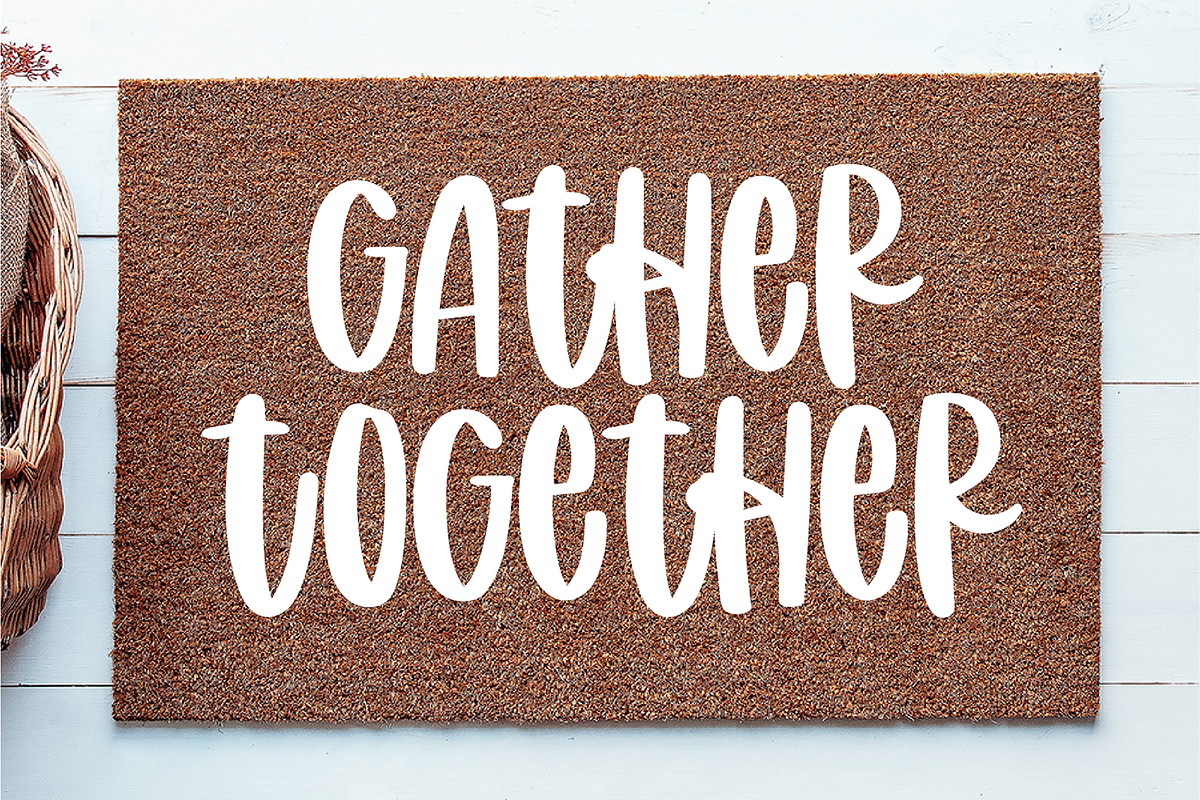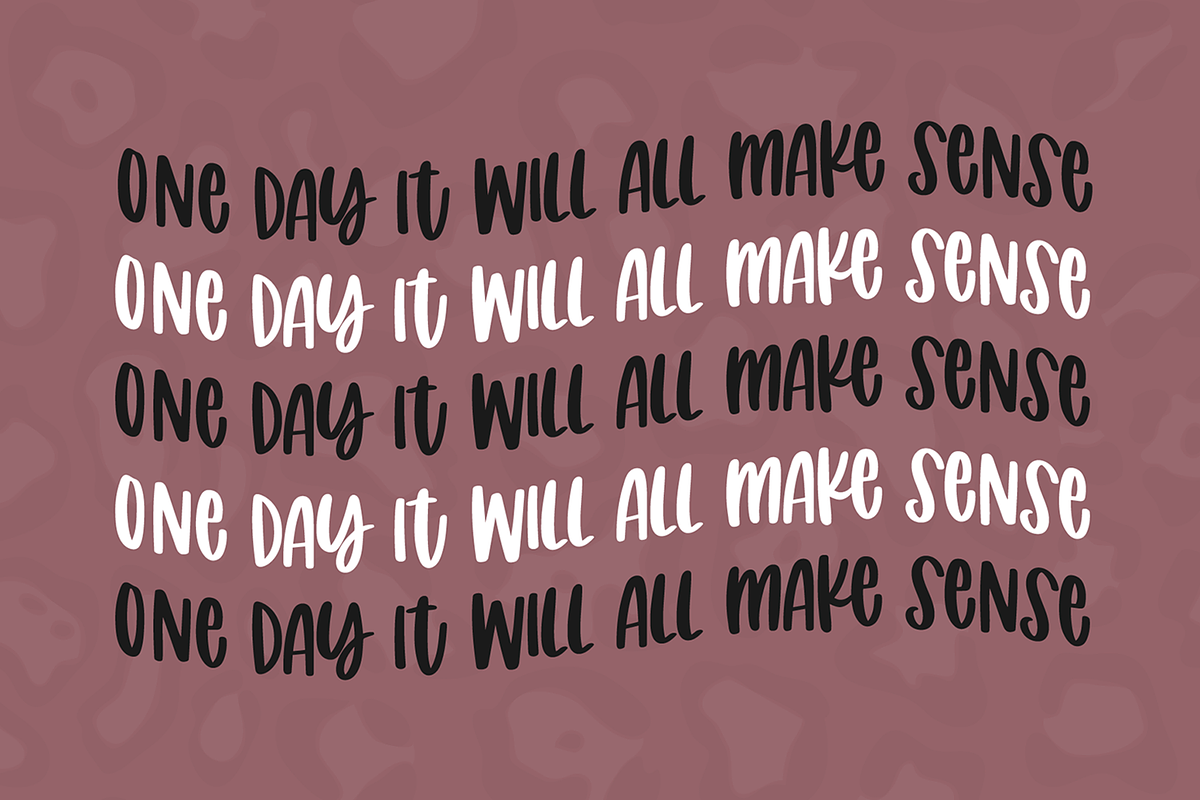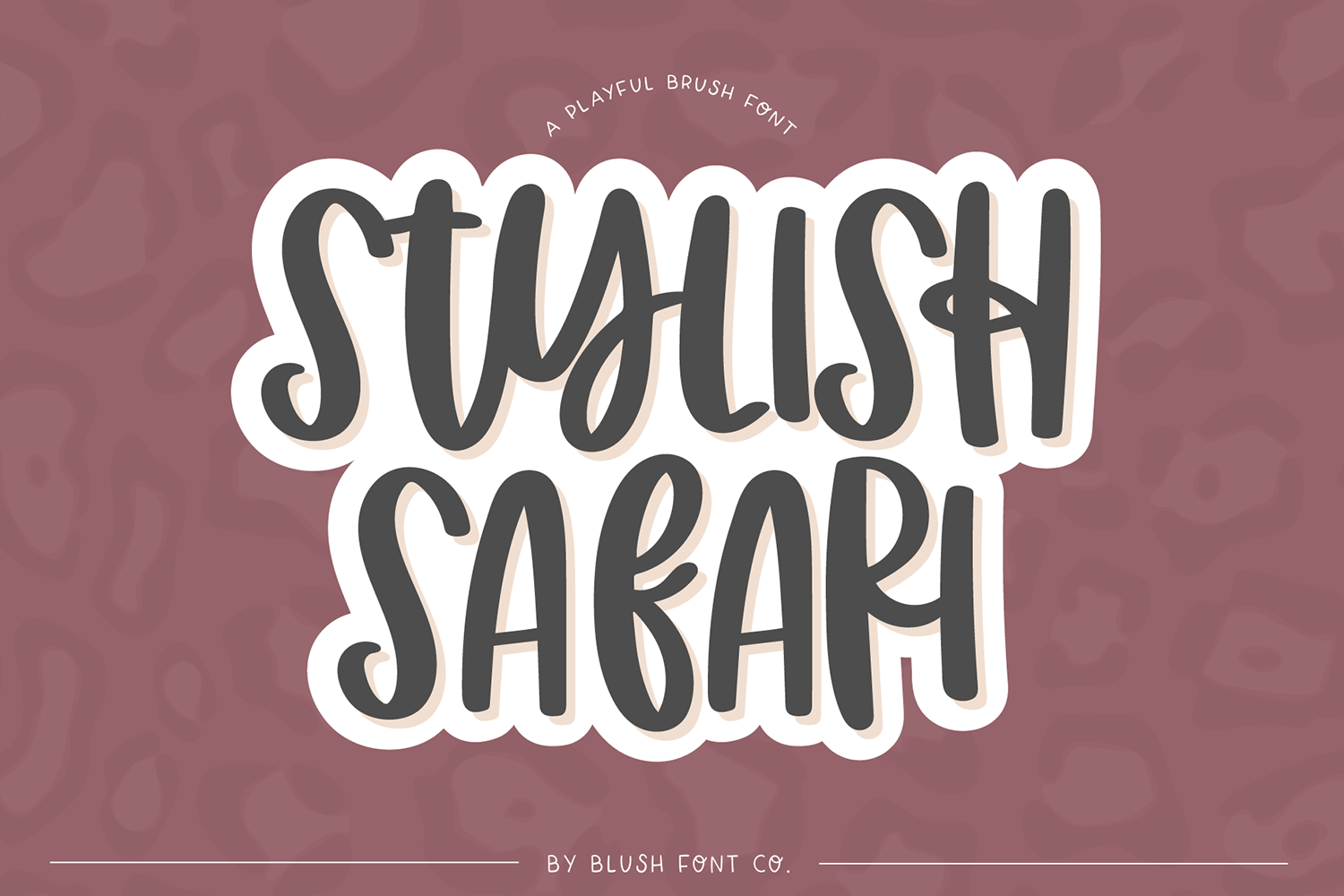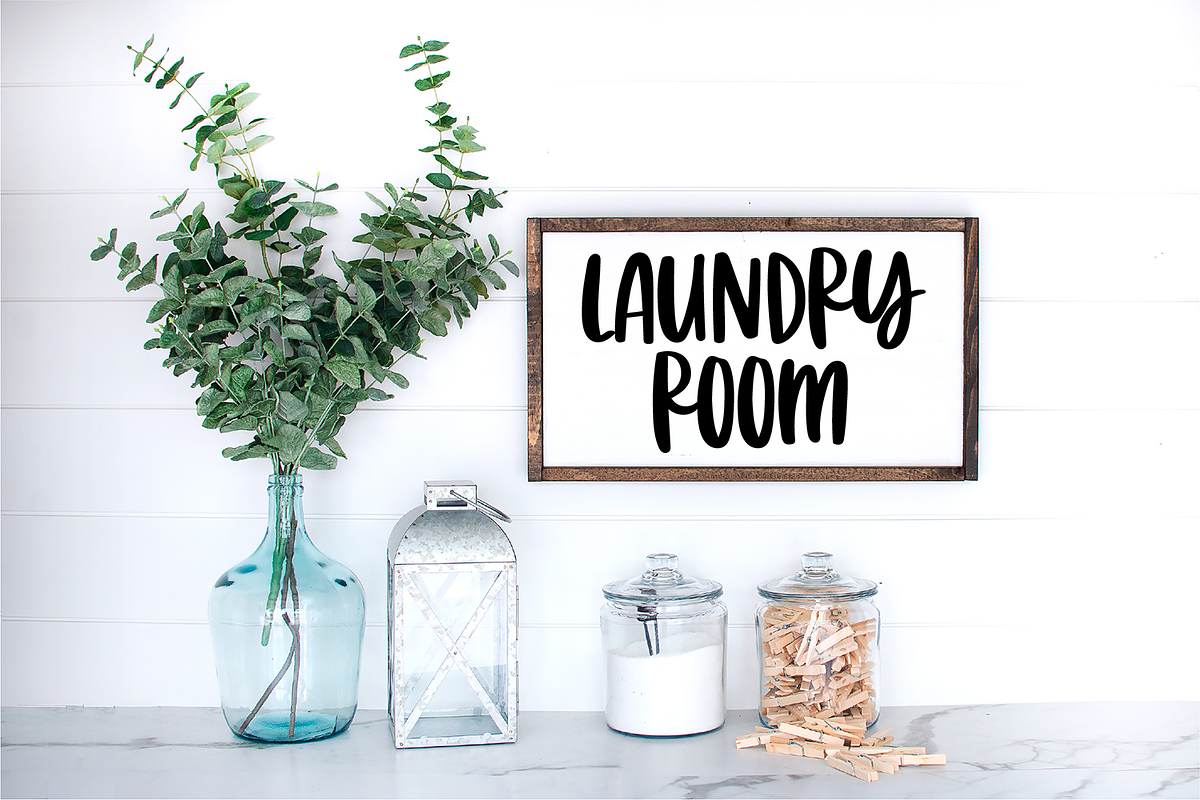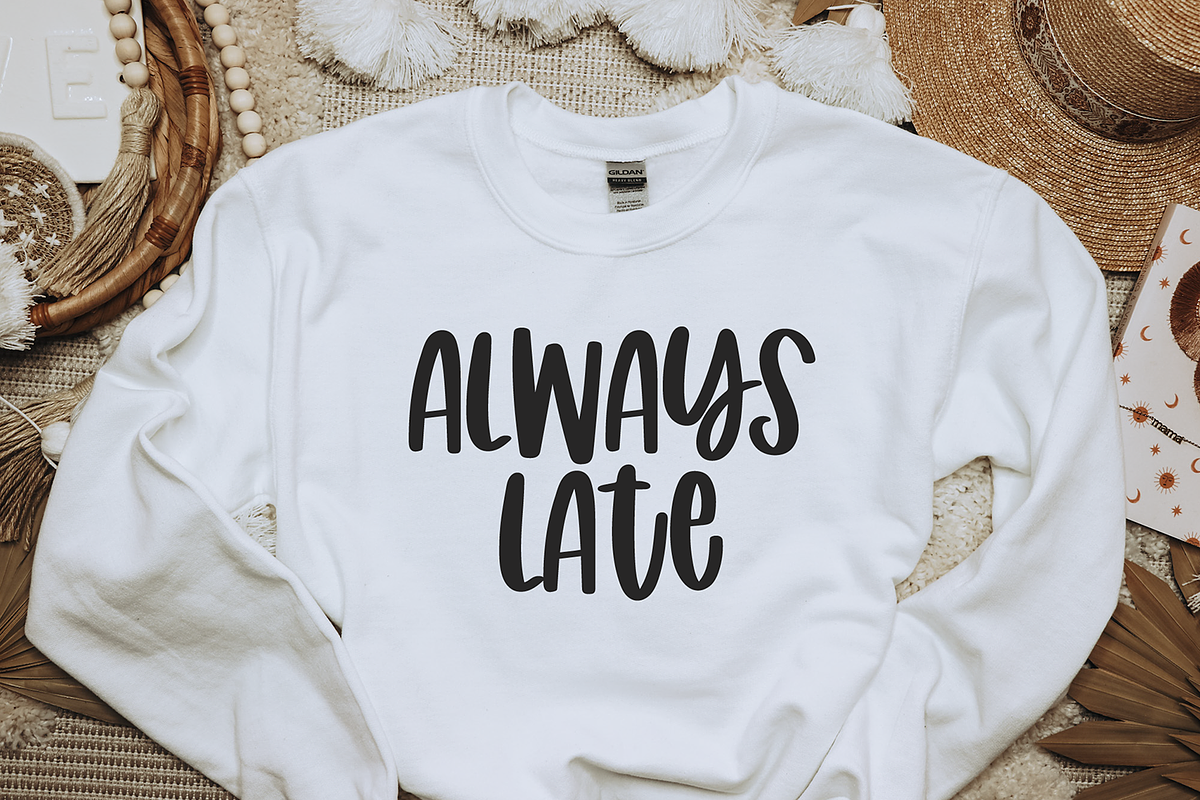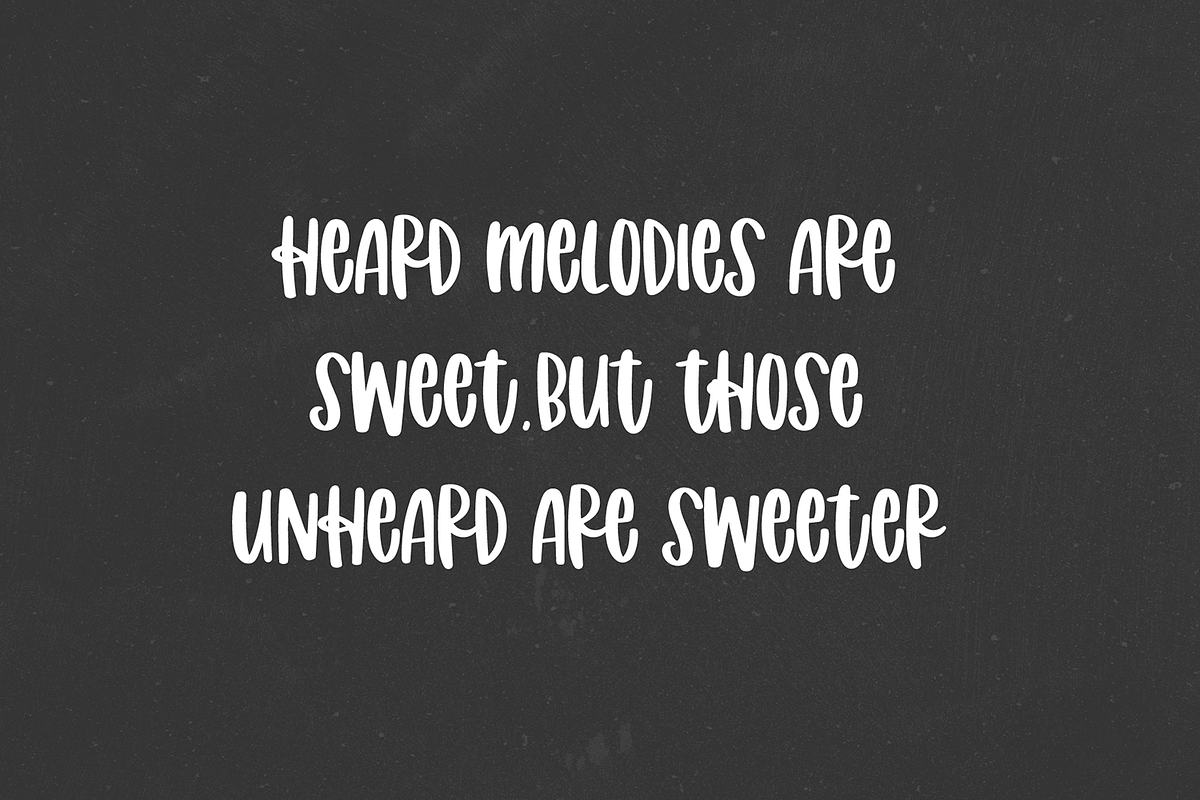
STYLISH SAFARI Brush Font
"Stylish Safari" cute brush font.
This font is a whimsical brush font that is perfect for social media or crafty projects. Use if for branding, crafts for decor, invitations, and more! This font includes all caps glyphs, numbers, basic punctuation marks and intl characters!